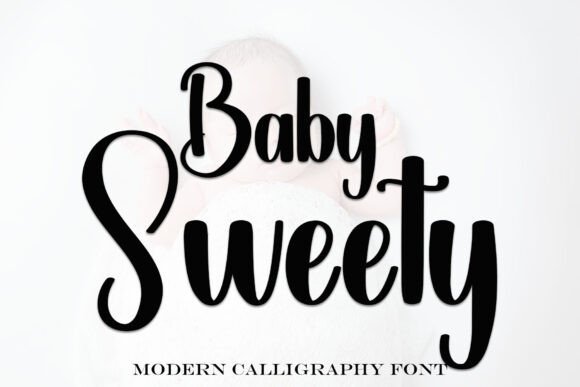
Unleashing the Sweetness of Your Designs
Have you ever stared at a blank canvas, waiting for that perfect spark to ignite your creativity? It’s a feeling we’ve all been there – the blank page staring back at us, begging to be transformed into something beautiful. And then, it hits you – a font that whispers sweet nothings of elegance and sophistication, guiding your brushstrokes and bringing your design to life.
Meet Baby Sweety Font, the charming handwritten font that adds a touch of classic calligraphy to your design projects. This trendy font is a masterclass in balance and proportion, blending timeless style with a modern twist. Whether you’re crafting a wedding invitation, designing a branding package, or creating a whimsical illustration, Baby Sweety Font is the perfect companion to elevate your work.
For designers, Baby Sweety Font is a valuable asset, offering a unique blend of elegance and playfulness that’s sure to captivate audiences. With its impeccable form and contemporary atmosphere, this font is the key to unlocking your full creative potential and taking your designs to the next level.
Baby Sweety Font Key Features
- Font Style: A playful, cursive font ideal for baby-related designs and children’s products.
- Unique Characteristics: Features a unique, hand-drawn design with intricate details and flourishes, adding a touch of whimsy and personality to designs.
Baby Sweety Font Review
- The font’s playful and cute design is perfect for creating a fun and whimsical atmosphere. It’s great for projects involving children’s books, nursery decor, or any other related themes.
- The font is highly legible, even at smaller font sizes, making it suitable for various applications.
- The font family includes a decent number of styles and weights, offering flexibility in terms of layout and design.
- The font might not be the best choice for professional or formal projects, as its playful nature may not convey the desired level of sophistication.
- The font’s design, while cute, may not be suitable for projects that require a more elegant or refined aesthetic.
- The font family is not as extensive as some other popular font families, which may limit its versatility in certain projects.
Overall, I think the Baby Sweety Font is a great addition to any designer’s toolkit, especially for projects involving children or a playful theme. While it may have some limitations, its unique design and versatility make it a solid choice for many applications.
The Baby Sweety font is commonly used for:
– Children’s products and branding.
– Baby and nursery decor.
– Whimsical and playful designs.
– Illustrations and graphics.